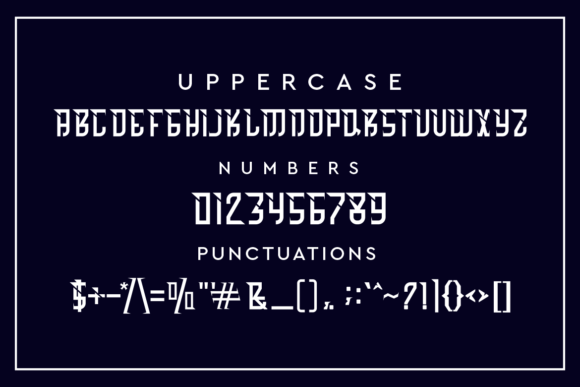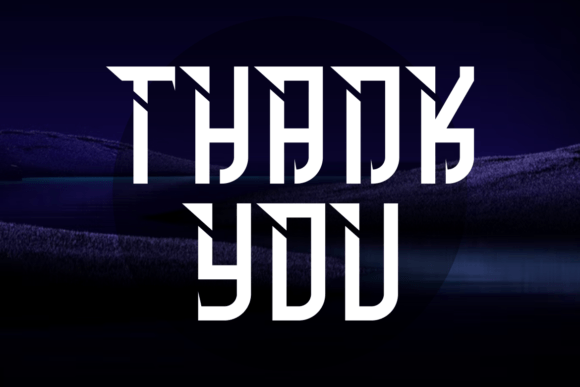
Hassira Font
HASSIRA FONT SPECIMEN
Hassira is a slab serif font that feels beautiful classy, elegant, and modern. This font is perfectly suited for a wide variety of projects, such as signature, stationery, logo, wedding, typography quotes, magazine or book cover, website header, clothing, branding, packaging design, and more.